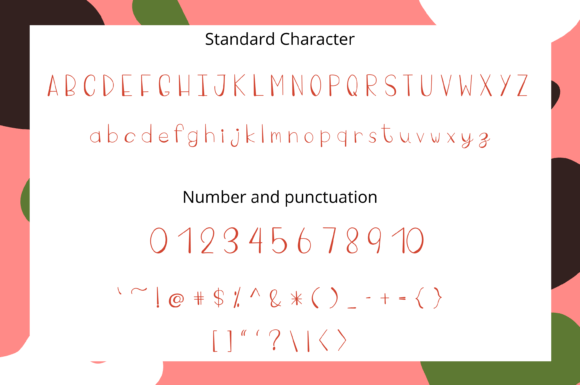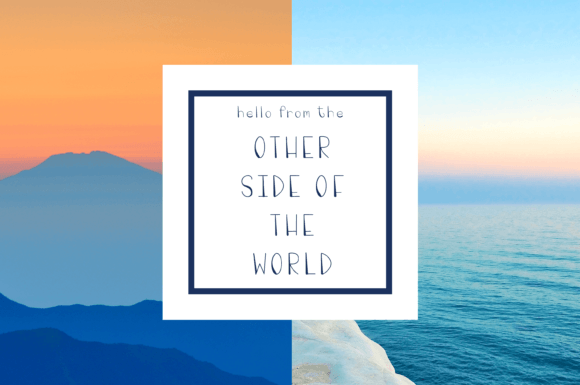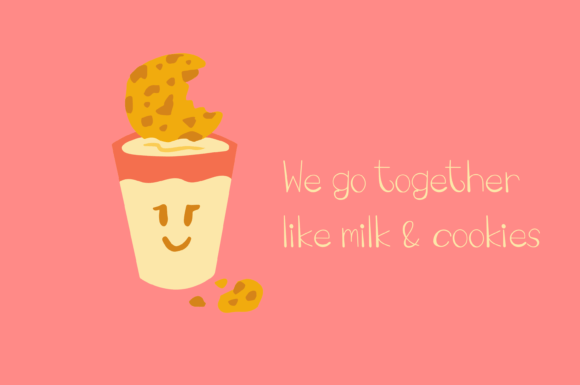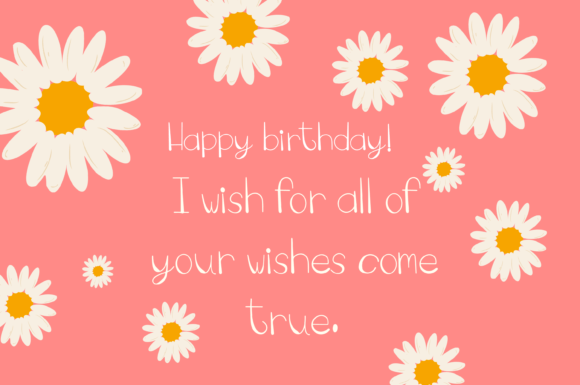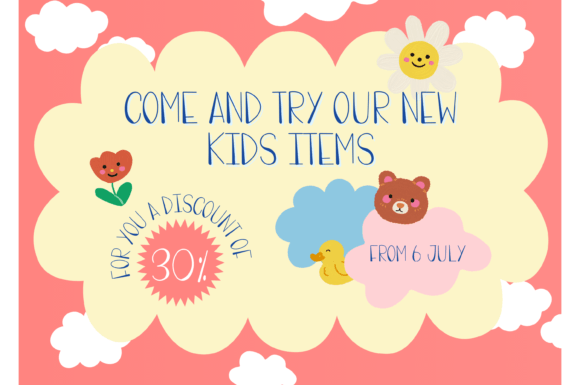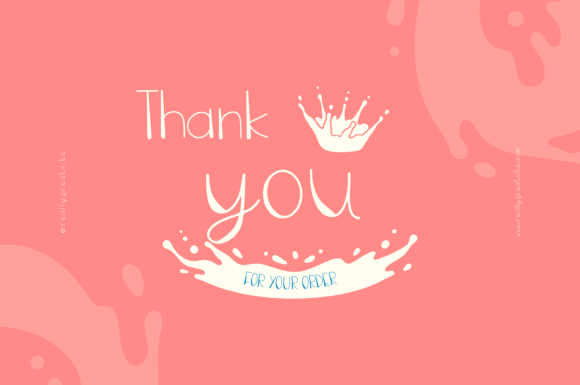
Introducing Almond Milk Font: The Whimsical and Clean Handwritten Font You Need
Are you tired of using the same old fonts for your design projects? Do you want to add a touch of whimsy and personality to your creations? Look no further than Almond Milk Font, a beautiful and versatile handwritten font that’s perfect for a wide range of projects. In this article, we’ll take a closer look at Almond Milk Font, its features, and how you can use it to take your designs to the next level.
What is Almond Milk Font?
Almond Milk Font is a unique and charming handwritten font that’s designed to add a touch of elegance and sophistication to your designs. With its clean lines, flowing curves, and whimsical feel, this font is perfect for creating beautiful and eye-catching text that stands out from the crowd. Whether you’re working on a logo, a poster, a website, or any other design project, Almond Milk Font is sure to make it look amazing.
Features of Almond Milk Font
So, what makes Almond Milk Font so special? Here are just a few of its key features:
- Whimsical and clean design: Almond Milk Font has a unique and playful design that’s both clean and elegant. Its flowing lines and curves give it a friendly and approachable feel that’s perfect for a wide range of projects.
- Highly versatile: This font is incredibly versatile and can be used for a wide range of projects, from logos and posters to websites and social media graphics.
- Easy to read: Despite its whimsical design, Almond Milk Font is incredibly easy to read, making it perfect for body text as well as headlines.
- Supports a wide range of languages: This font supports a wide range of languages, making it perfect for designers and crafters who work with international clients or want to create designs for a global audience.
How to Use Almond Milk Font
So, how can you use Almond Milk Font in your designs? Here are a few ideas to get you started:
- Logos and branding: Use Almond Milk Font to create a unique and memorable logo for your business or brand. Its whimsical design makes it perfect for companies that want to stand out from the crowd.
- Posters and flyers: Add a touch of elegance and sophistication to your posters and flyers with Almond Milk Font. Its clean lines and flowing curves make it perfect for creating eye-catching headlines and body text.
- Websites and social media: Use Almond Milk Font to add a touch of personality to your website or social media graphics. Its easy-to-read design makes it perfect for body text, while its whimsical feel makes it perfect for headlines and titles.
- Crafting and DIY projects: If you’re a crafter or DIY enthusiast, Almond Milk Font is a great choice for your projects. Use it to create beautiful and eye-catching titles, headings, and labels for your crafts, scrapbooking, and other DIY projects.
Tips for Getting the Most Out of Almond Milk Font
Here are a few tips for getting the most out of Almond Milk Font:
- Experiment with different colors and textures: Almond Milk Font looks great in a wide range of colors and textures. Experiment with different combinations to find the one that works best for your design.
- Use it with other fonts: Almond Milk Font pairs well with a wide range of other fonts. Try using it with a bold sans-serif font for a striking contrast.
- Play with font sizes and styles: Almond Milk Font comes in a range of font sizes and styles. Experiment with different sizes and styles to add depth and interest to your design.
Almond Milk Font is a beautiful and versatile handwritten font that’s perfect for designers and crafters who want to add a touch of whimsy and personality to their creations. With its clean lines, flowing curves, and whimsical feel, this font is sure to make your designs stand out from the crowd. Whether you’re working on a logo, a poster, a website, or any other design project, Almond Milk Font is a great choice. So why not give it a try and see how it can elevate your designs?